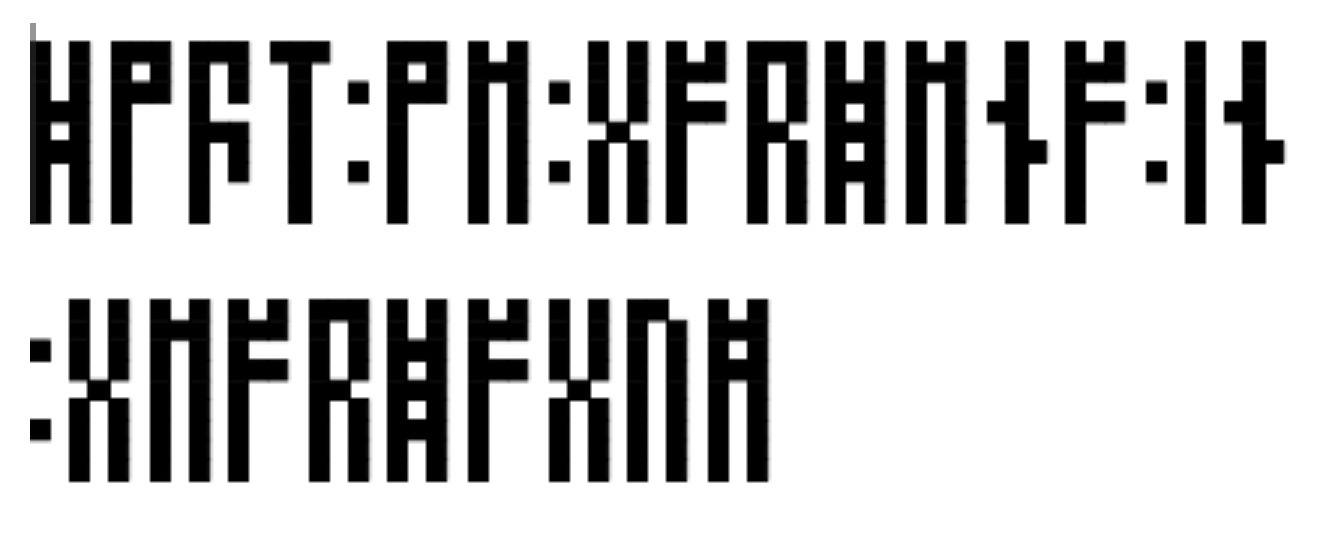
This is a minimalist (mostly) monospaced pixel font for the runic alphabet.
(Some of the shapes of the runes have been modified beyond their recognizable forms to fit the font’s constraints. But it is still legible.)